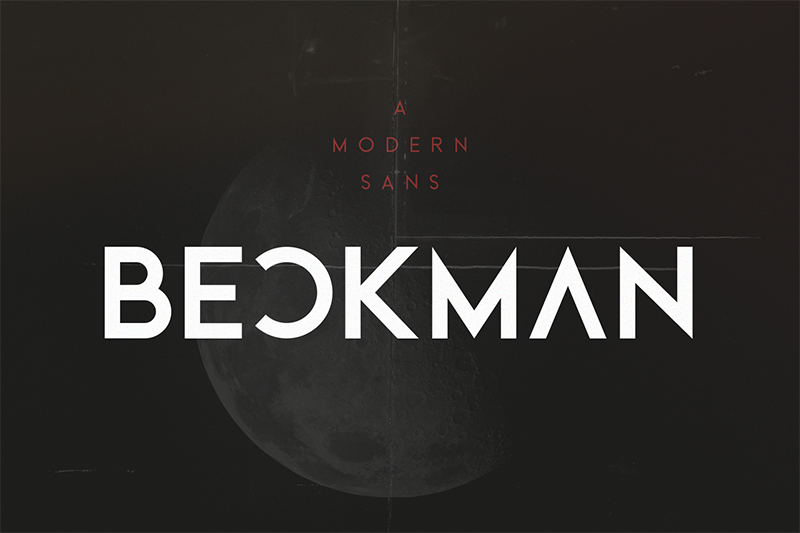
Preview and download Beckman Font. Created by Wahyu Rahmawan in Basic Sans serif styles with 100% Free license.
Beckman is a modern and minimalist sans-serif font family. The combination of minimal and geometric elements renders a modern design. Beckman includes 6 fonts, clean and modern caps, thereby creating more variability. NOTE: The alternate glyphs are available for full version. Download full version and commercial license: https://crmrkt.com/lz4z4B Thanks for downloading my font, and I hope you enjoy it! Created by Factory738. |